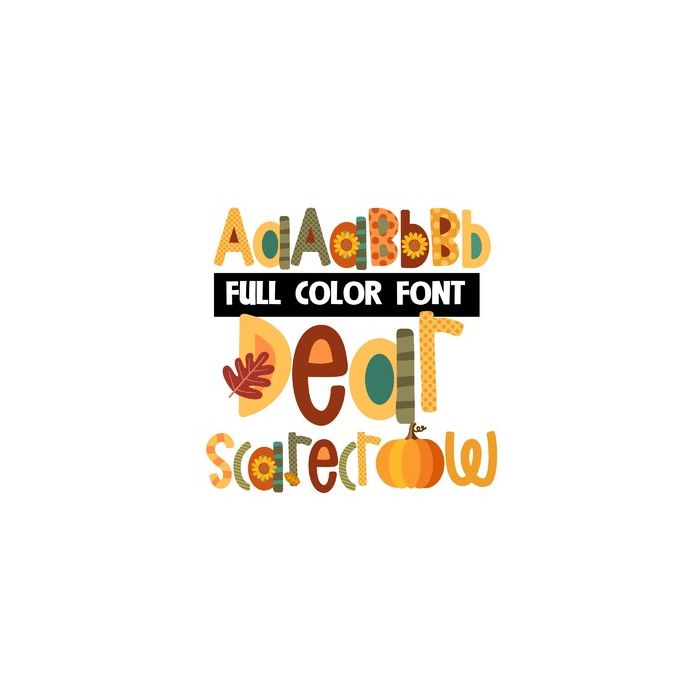
This full-color font features an autumn palette with a fall theme throughout. There is a secondary upper and lowercase that you can access through Silhouette's glyph map.